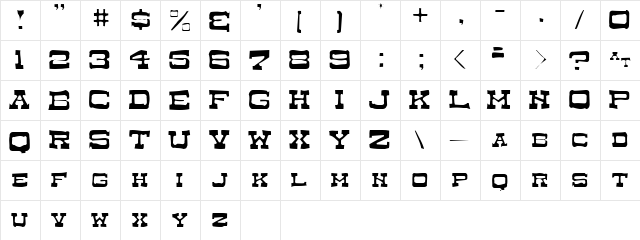
Dry Goods Antique SmC JL Regular
Design Context for Dry Goods Antique SmC JL Typeface
Dry Goods Antique SmC JL has the warm character of retro typography — evoking diners, record sleeves, and the golden age of print advertising.
Font Pairing: Combine Dry Goods Antique SmC JL with a simple slab or neutral sans — period-accurate companions reinforce the vintage feel without competing for attention.
Pro Tip: Lean into Dry Goods Antique SmC JL's period character by pairing it with aged paper textures, muted colour palettes, and vintage illustration styles.